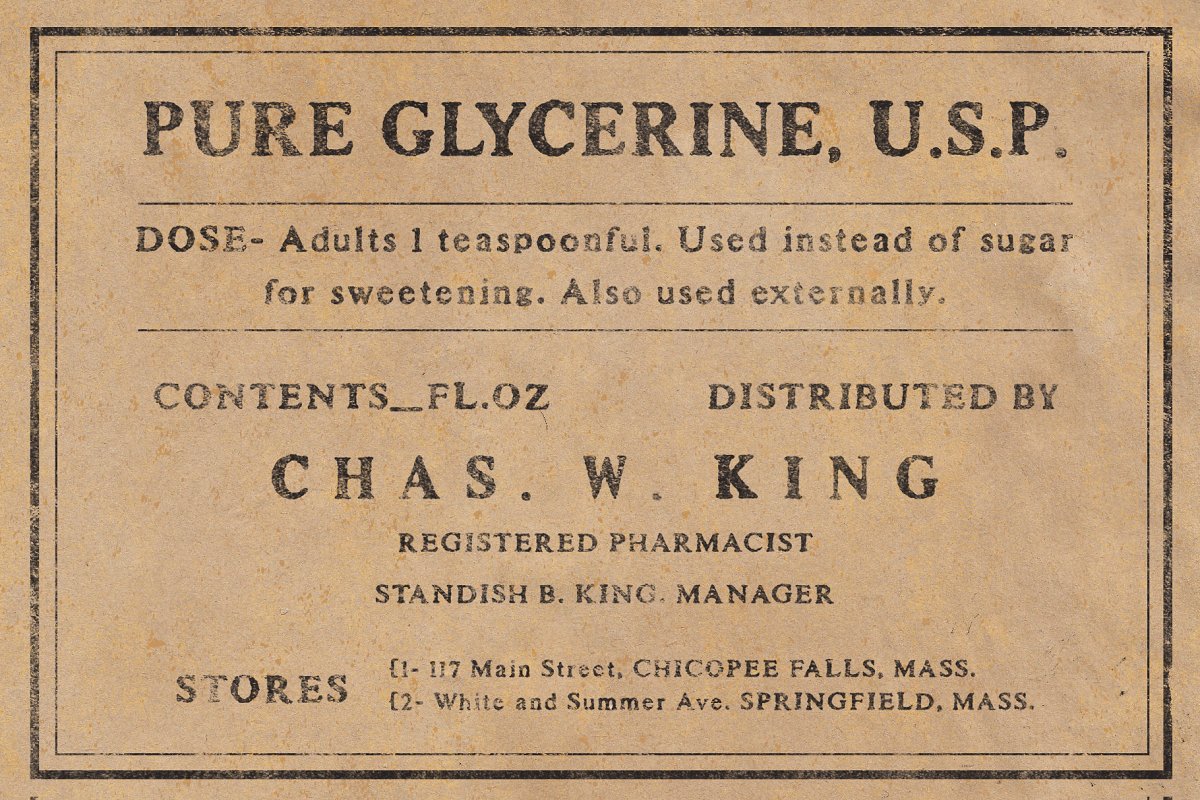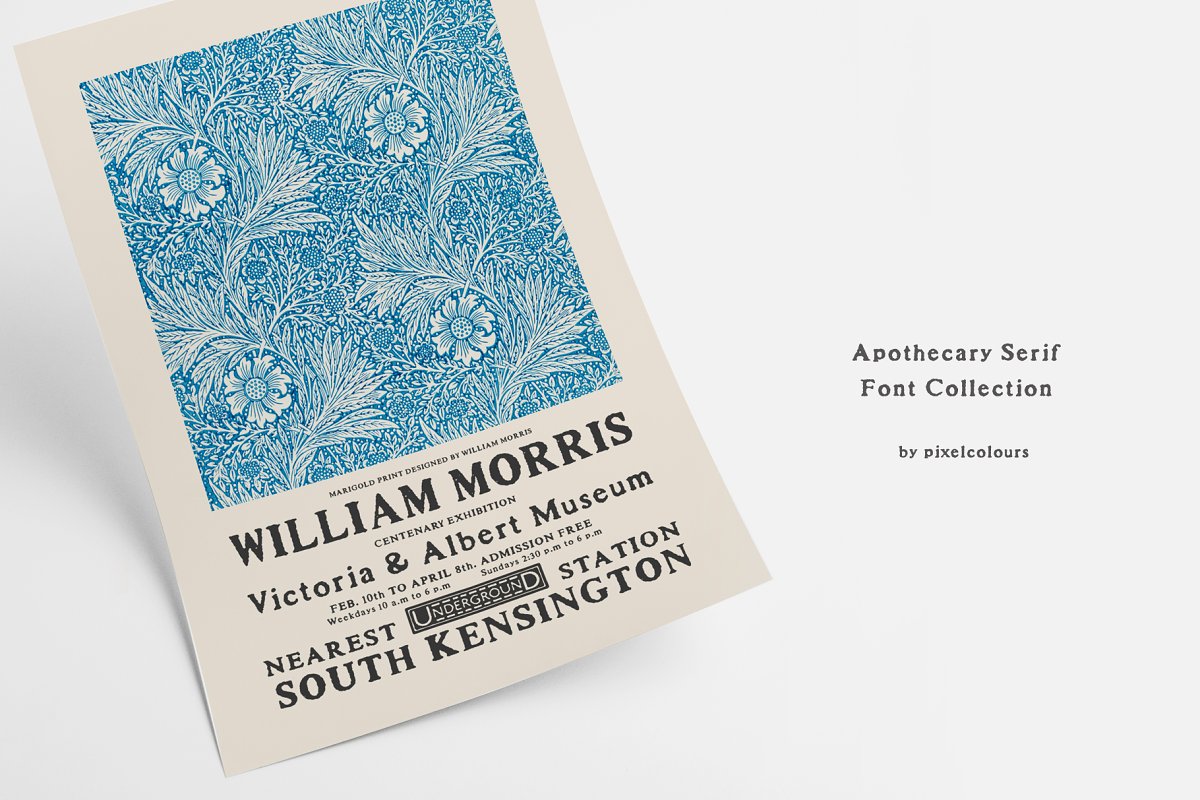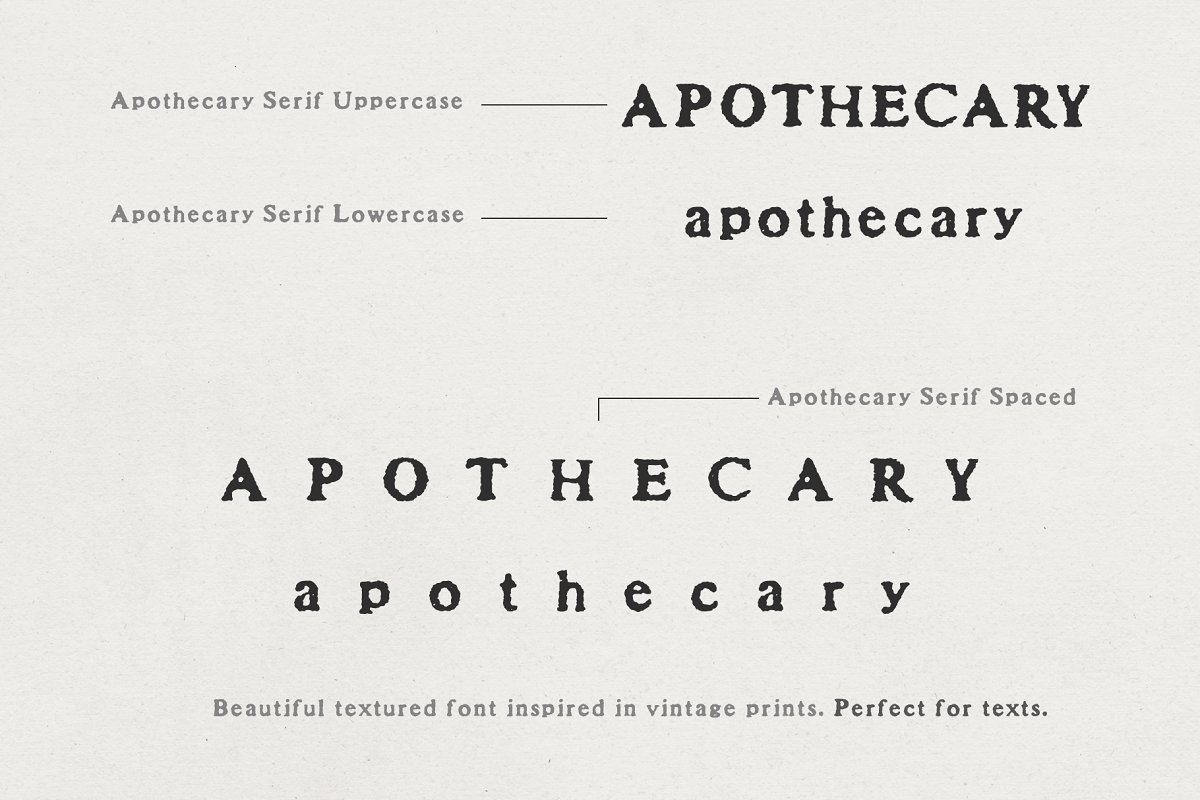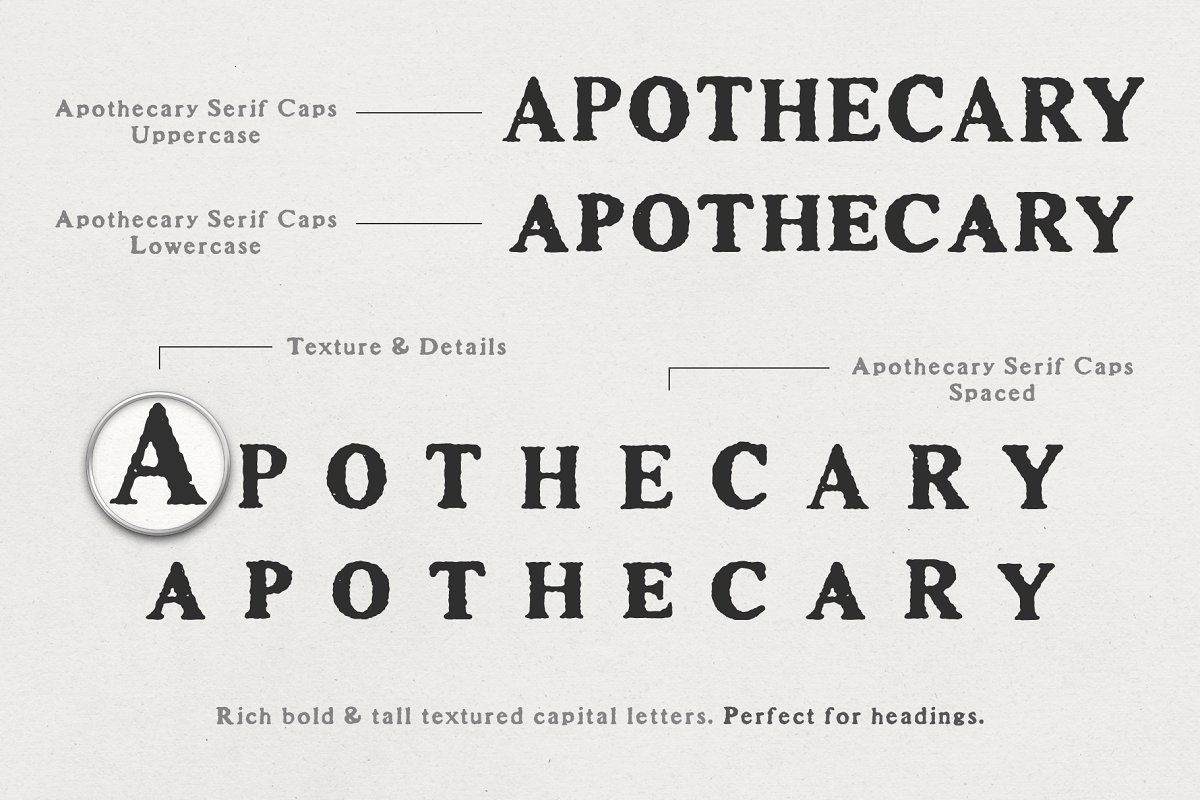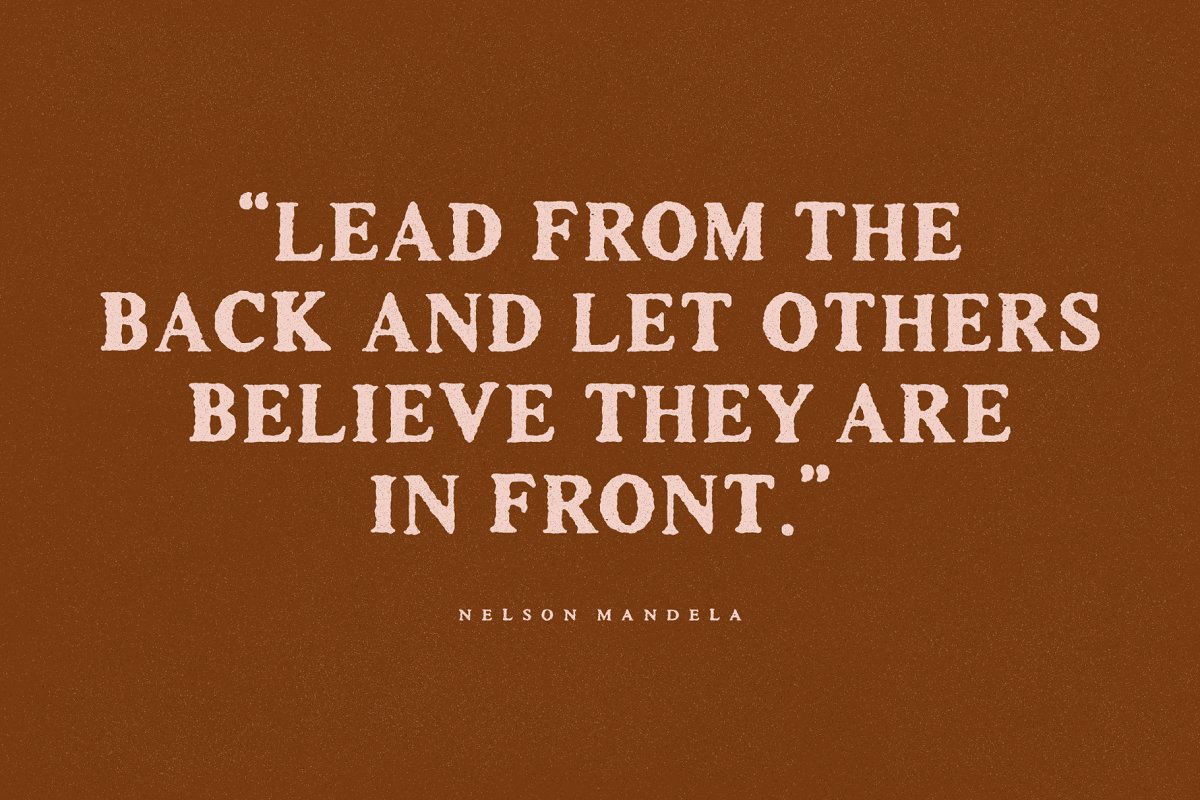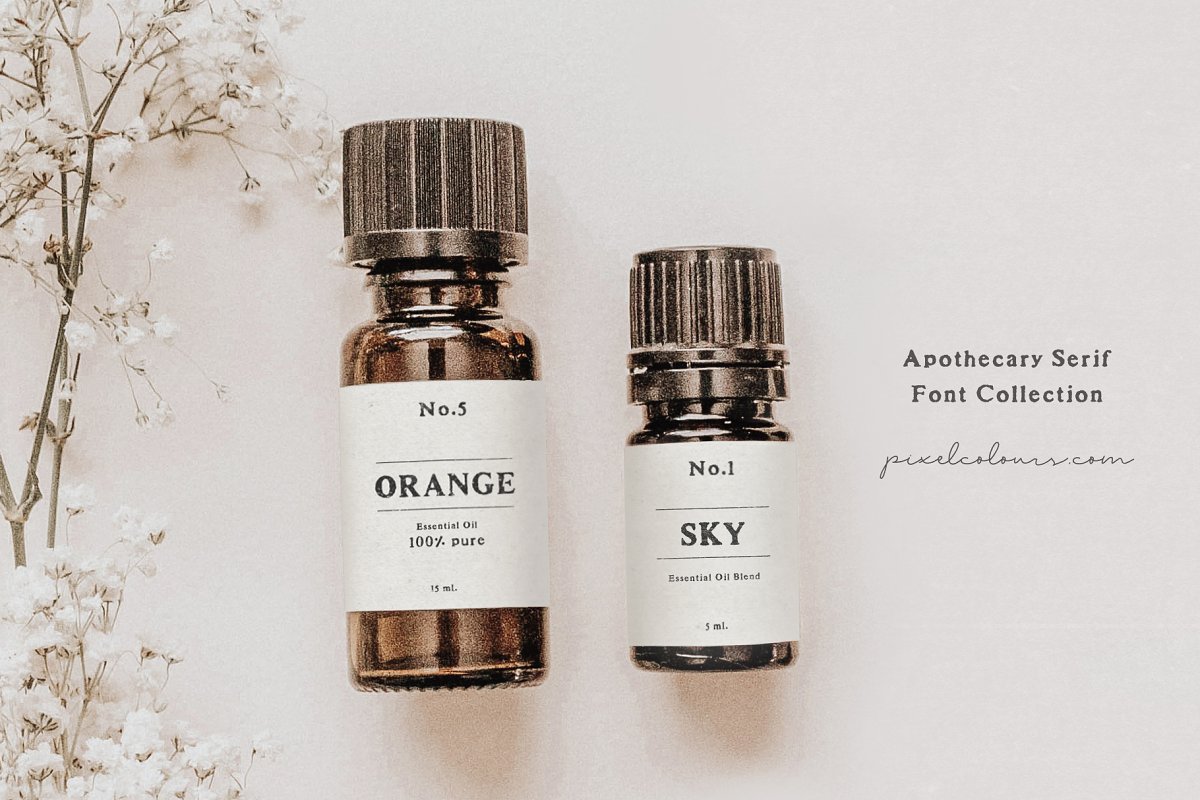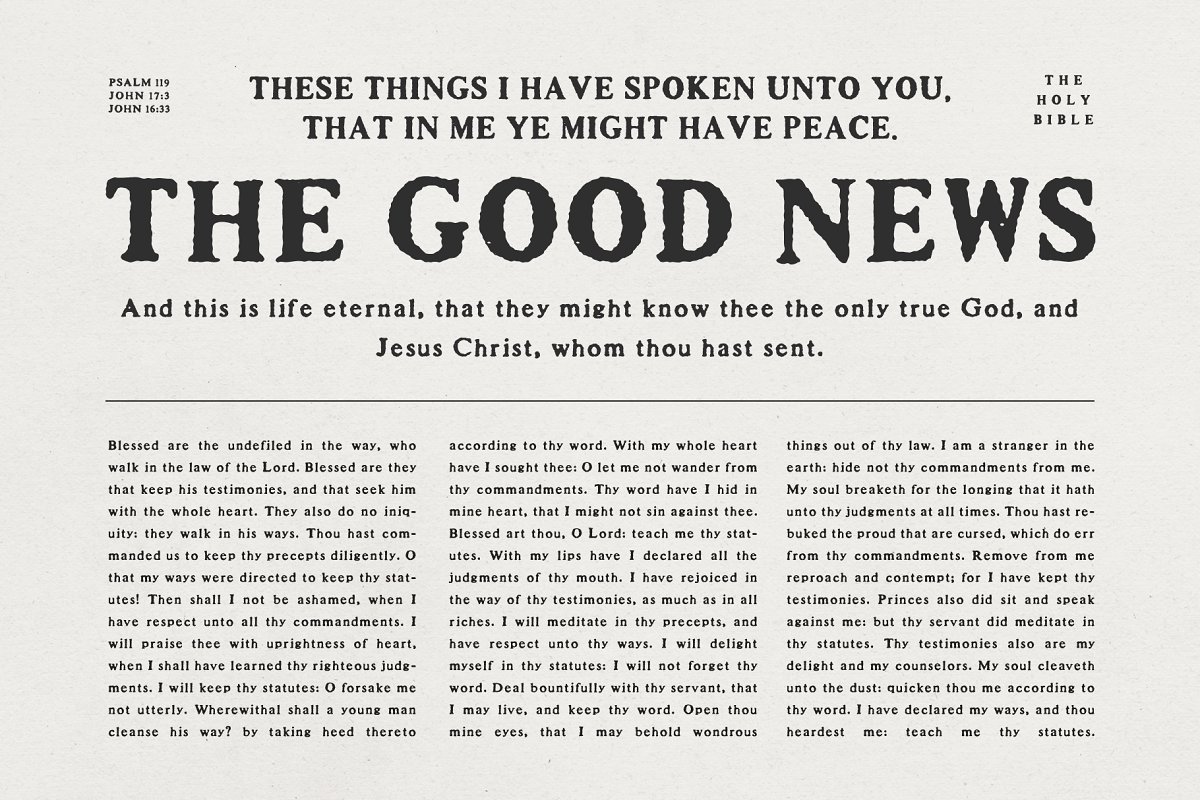
About the Apothecary Serif Collection Font
Apothecary Serif is a font collection inspired in vintage and antique prints, Great for texts or headings and perfect as a pairing font, Design quotes, packaging, wedding invites or labels and branding with a vintage style, Lovingly designed to match my original Apothecary Script (sold separately)Includes:Apothecary Serif: a serif font with an antique print texture
Apothecary Serif Spaced: beautifully spaced for texts or as a pairing font, Apothecary Serif Caps: rich bold and tall textured capitals font that includes the lowercases as a secondary uppercase font, slightly smaller, Great for headings or as drop caps